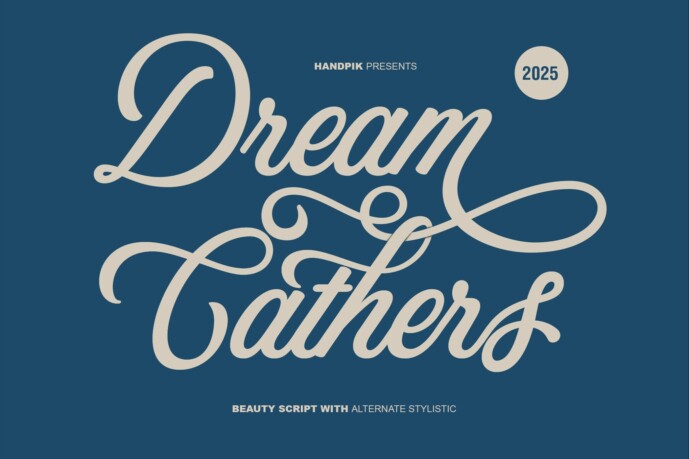
Dream Cathers Font
Designer: Handpikproject
Dream Cathers will perfect for many project: book, magazines, logo, branding, photography, quotes, blog header, poster, advertisements, etc.